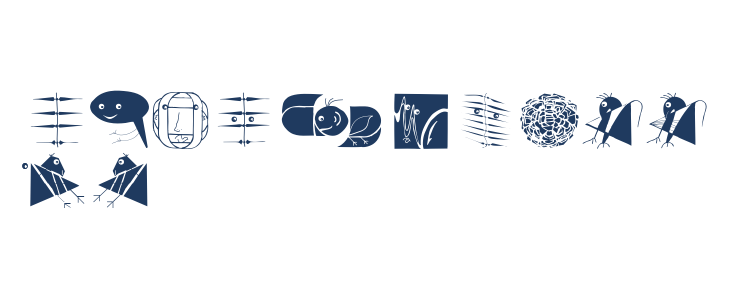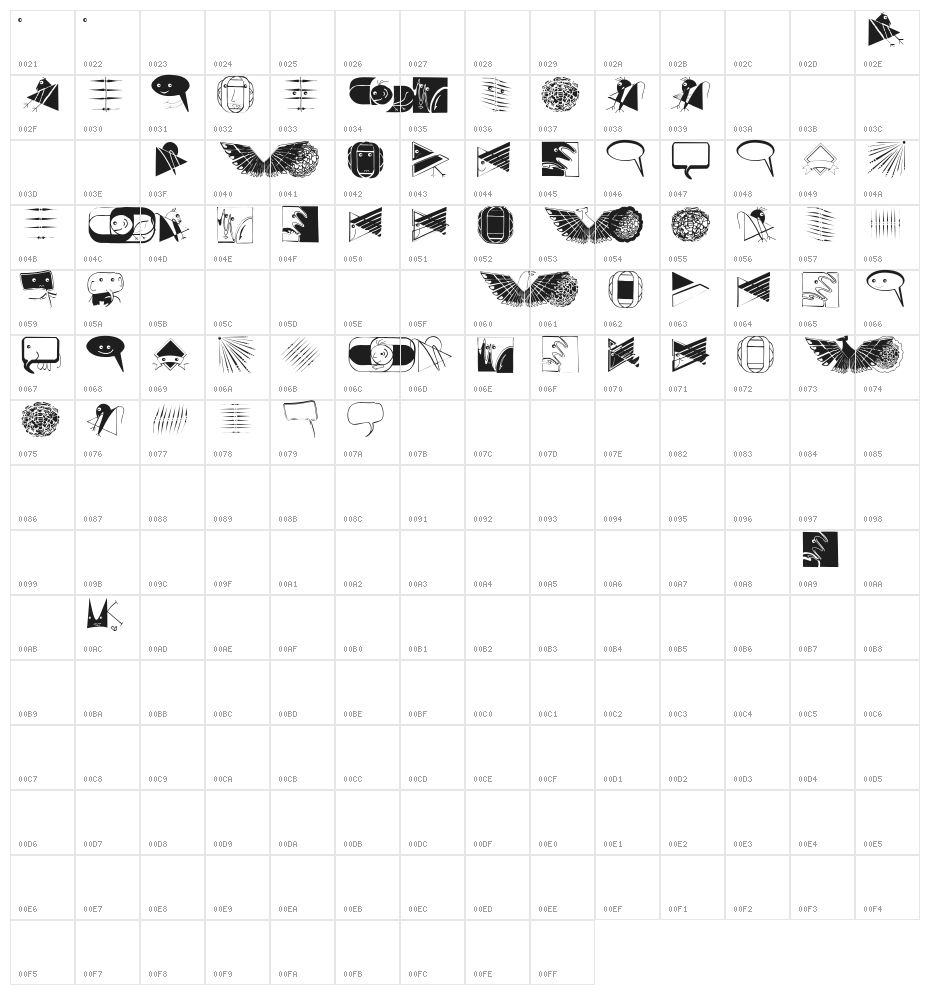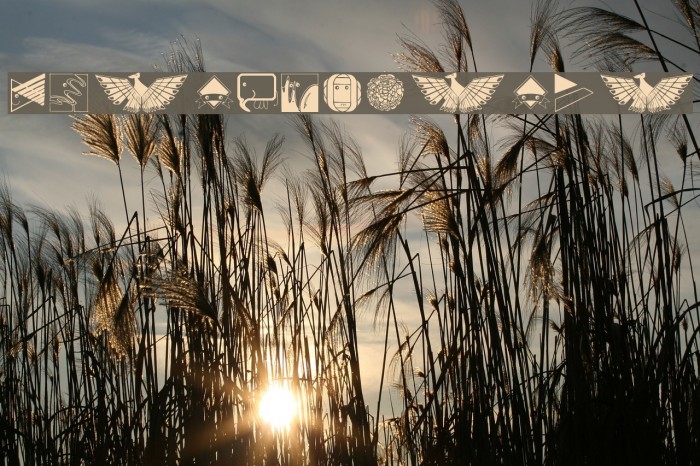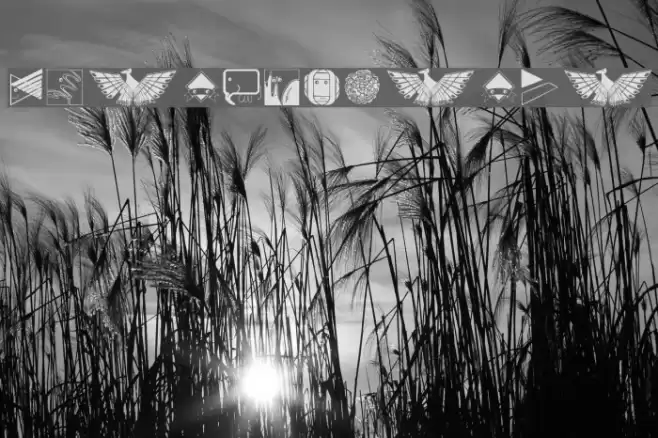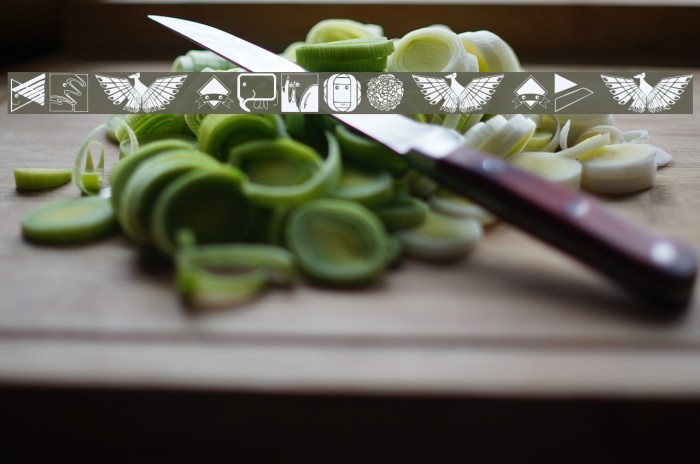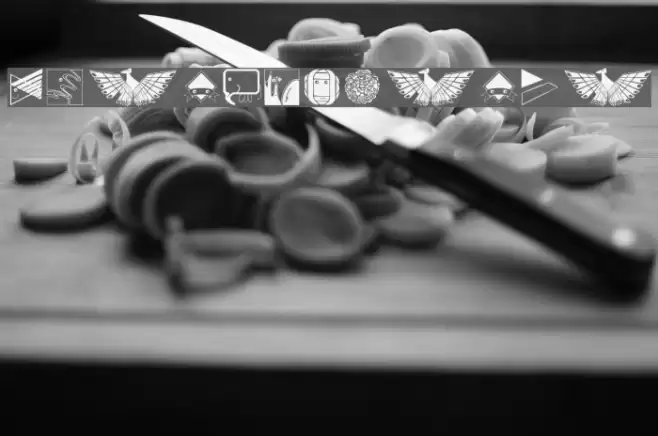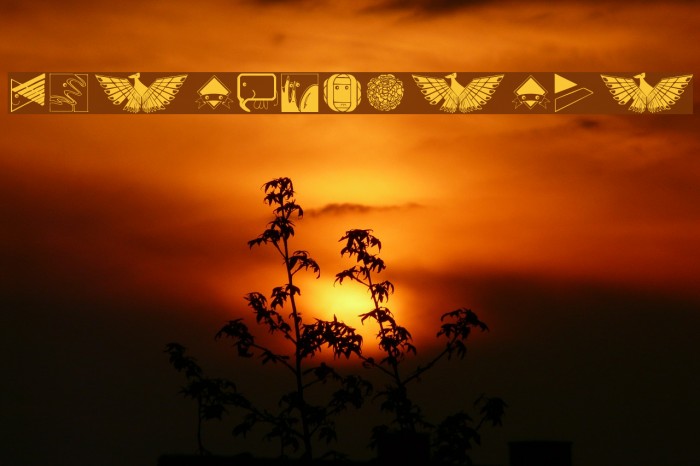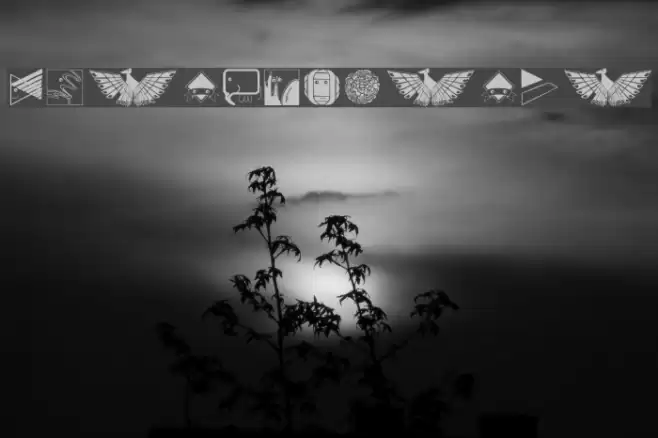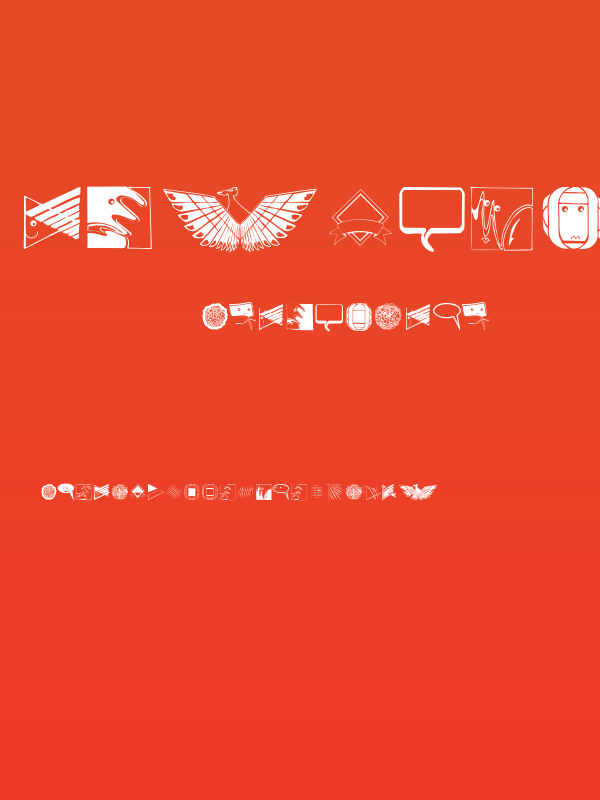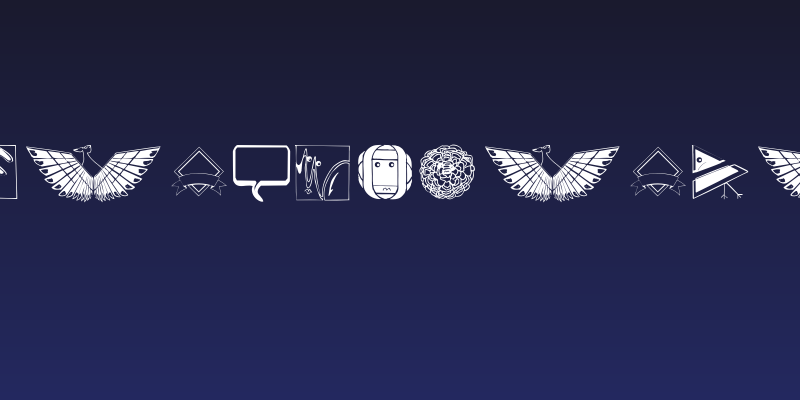
DesignBasics Font
DesignBasics Description
A highly decorative and illustrative dingbat font featuring a variety of abstract shapes, birds, speech bubbles, geometric patterns, and whimsical characters. Each glyph is a unique pictogram rather than a traditional letterform, with strong black-and-white contrast and playful, modern design elements.
Overall StyleDecorative, Modern, Whimsical
Use CaseIcons, Decorative elements, Visual accents
Proposed ProjectsInfographics, educational materials, children's books, creative posters, visual storytelling, icon sets.